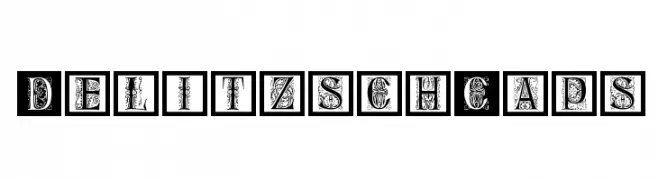
( Fonts by David Kerkhoff - www.hanodedphotography.com )
A bold, brush-textured font with a raw and energetic style.
( Fonts by Sean Thorenson )
A playful, handwritten font with a casual and creative style.
( Fonts by Khurasan )
A playful, bold font with rounded edges and a hand-drawn feel.
( Fonts by Khurasan )
Bold, rounded font with a playful and friendly style.
A playful, handwritten font with smooth curves and a casual, dynamic style.
A playful, bold handwritten font with uneven strokes and a quirky style.
( Fonts by Khurasan )
A playful, bold, and rounded font with a whimsical, bubbly appearance.
( Fonts by Khurasan )
A playful, rounded font with a hand-drawn, informal style.
( Fonts by Khurasan )
A playful, rounded font with bold, smooth curves and a friendly vibe.
An elegant and flowing script font with ornate uppercase letters and smooth lowercase connections.
( Fonts by Maniackers Design - www.mksd.jp OFF SITE )
A decorative, geometric font with parallel line patterns creating a bold, modern look.
A playful, casual handwritten font with smooth, rounded strokes.
( Fonts by Kong Font )
A bold, playful font with rounded, bubbly characters.
( Fonts by Hamsah )
A playful, hand-drawn style font with rounded, bold characters.
A playful, modern sans-serif font with rounded edges and balanced spacing.
( Fonts by Khurasan )
A playful, bold font with rounded, bubbly characters.
( Walter Paggioro - www.raptuscreativi.com/site/fields/type-design/ )
A constellation-themed font with characters formed by dots and connecting lines.
( Fonts by DN Creative )
Playful handwritten font with rounded edges.
A playful, handwritten-style font with bold, rounded strokes and a dynamic, casual feel.
( Fonts by Khurasan )
A playful, bold font with rounded edges and a bubbly appearance.
( Fonts by Excellent Ritma Florendia )
A playful and bold font with exaggerated curves and a lively personality.
A bold, expressive handwritten font with thick, flowing strokes.
( Fonts by Khurasan )
A playful, bold font with rounded, thick strokes and a friendly appearance.
( Fonts by The Docallisme )
A bold, playful font with rounded, textured edges resembling fluffy clouds.